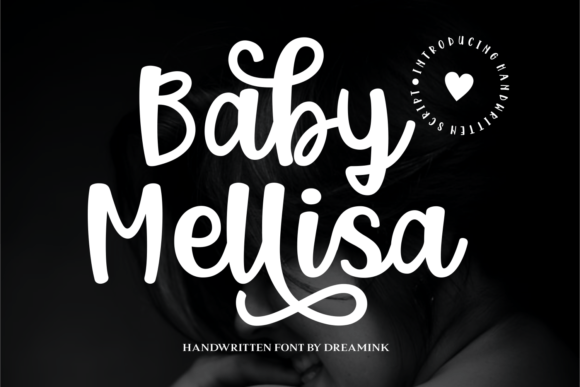
Journey into a world of captivating charm with Baby Mellisa Font, a handwritten masterpiece that will infuse your designs with a touch of playful sweetness. Its graceful curves and spirited strokes, akin to a joyful dance across the page, evoke a sense of innocence and jubilance.
With Baby Mellisa Font, your creative projects will blossom into realms of enchantment. Picture your invitations adorned with its delicate embrace, heartfelt notes carrying the warmth of its charm, and cute labels radiating an aura of whimsy. Every word, every line penned in this font carries a whisper of joy and delight, enchanting the hearts of your audience.
Step into the realm of boundless creativity with Baby Mellisa Font, where the possibilities are as limitless as your imagination. Its PUA encoding grants you effortless access to a universe of glyphs and ligatures, opening doors to artistic expression beyond compare. Unleash your inner artist and let your designs dance with a newfound grace, leaving an unforgettable impression on all who behold them.
Don't delay your journey into the realm of enchanting typography. Embrace Baby Mellisa Font today and watch as your designs transform into captivating works of art, leaving a lasting legacy of charm and delight. Let your creative spirit soar with Baby Mellisa Font, and experience the magic of true font artistry.